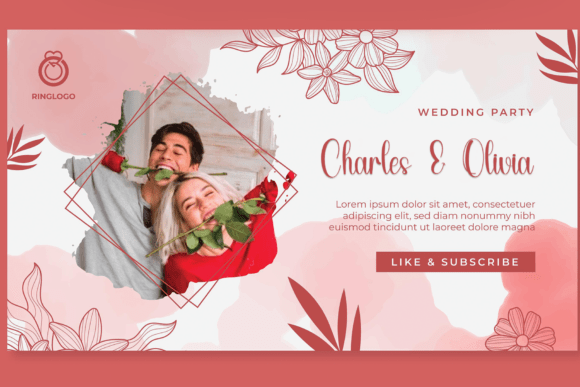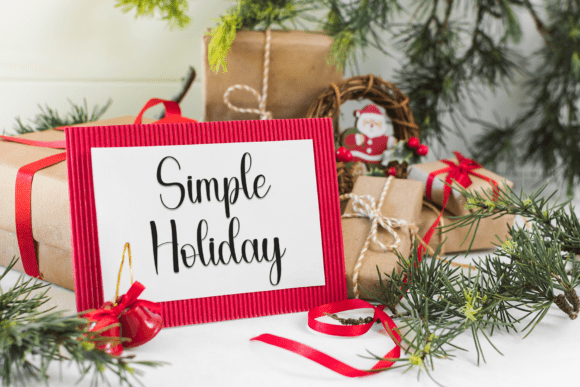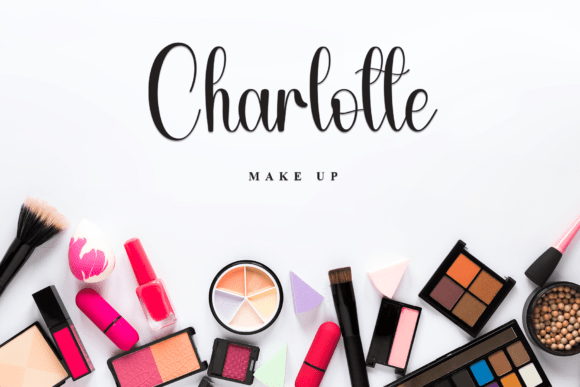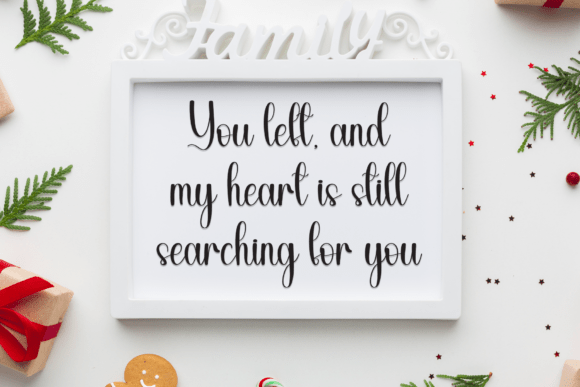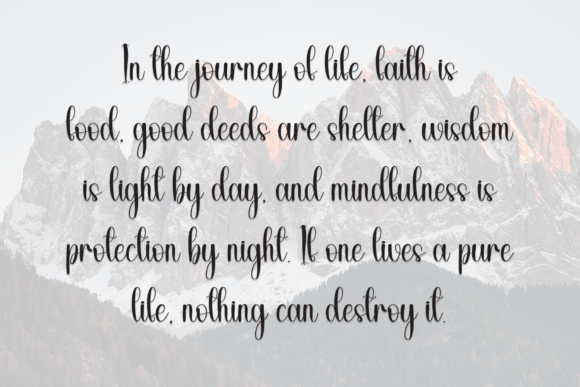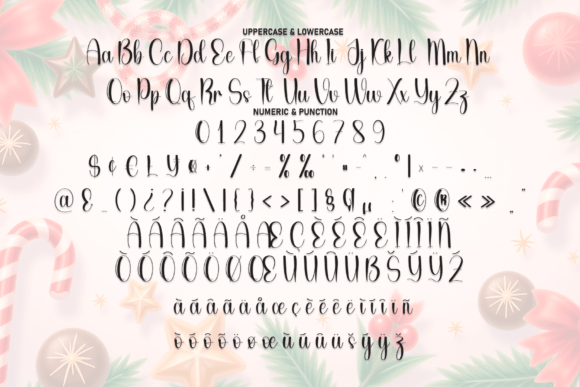
Introducing Christmas Font: A Festive and Versatile Typeface for Your Creative Projects
Are you looking for a font that captures the essence of the holiday season? Look no further than Christmas Font, a beautiful and eye-catching typeface designed with a soft, unique touch. Its distinctive strokes give it a special character, making it meaningful and versatile for future use. In this article, we’ll explore the features and benefits of Christmas Font, and how it can elevate your design projects, crafts, and other creative works.
What is Christmas Font?
Christmas Font is a specially designed typeface that embodies the spirit of the holiday season. Its soft and unique touch sets it apart from other fonts, making it perfect for projects that require a festive and eye-catching look. The font’s distinctive strokes give it a special character, making it both meaningful and versatile.
Key Features of Christmas Font
- Unique and Soft Touch: Christmas Font is designed with a soft and unique touch that sets it apart from other fonts.
- Distinctive Strokes: The font’s distinctive strokes give it a special character, making it meaningful and versatile.
- Variety of Characters: Christmas Font comes with a range of characters, making it perfect for design projects, crafts, and other creative works.
- Festive and Eye-Catching: The font’s festive and eye-catching design makes it perfect for holiday-themed projects.
Benefits of Using Christmas Font
So, why choose Christmas Font for your creative projects? Here are just a few benefits of using this versatile typeface:
- Instant Festive Feel: Christmas Font instantly adds a festive feel to your projects, making them perfect for holiday-themed designs.
- Versatility: The font’s unique design makes it versatile and suitable for a range of creative projects, from crafts to digital designs.
Creative Projects with Christmas Font
So, what can you create with Christmas Font? The possibilities are endless! Here are a few ideas to get you started:
- Holiday Cards and Invitations: Use Christmas Font to create festive and eye-catching holiday cards and invitations.
- Decorative Signs and Banners: Create decorative signs and banners with Christmas Font to add a festive touch to your home or office.
- Crafts and DIY Projects: Use Christmas Font to add a personal touch to your crafts and DIY projects, such as scrapbooking, paper crafting, and more.
- Digital Designs: Use Christmas Font in your digital designs, such as social media graphics, blog posts, and website headers.
In conclusion, Christmas Font is a beautiful and eye-catching typeface that’s perfect for designers and crafters looking to add a festive touch to their creative projects. With its unique and soft touch, distinctive strokes, and variety of characters, Christmas Font is versatile and easy to use. Whether you’re creating holiday cards, decorative signs, or digital designs, Christmas Font is the perfect choice. So why wait? Download Christmas Font today and start creating your own festive and eye-catching designs!